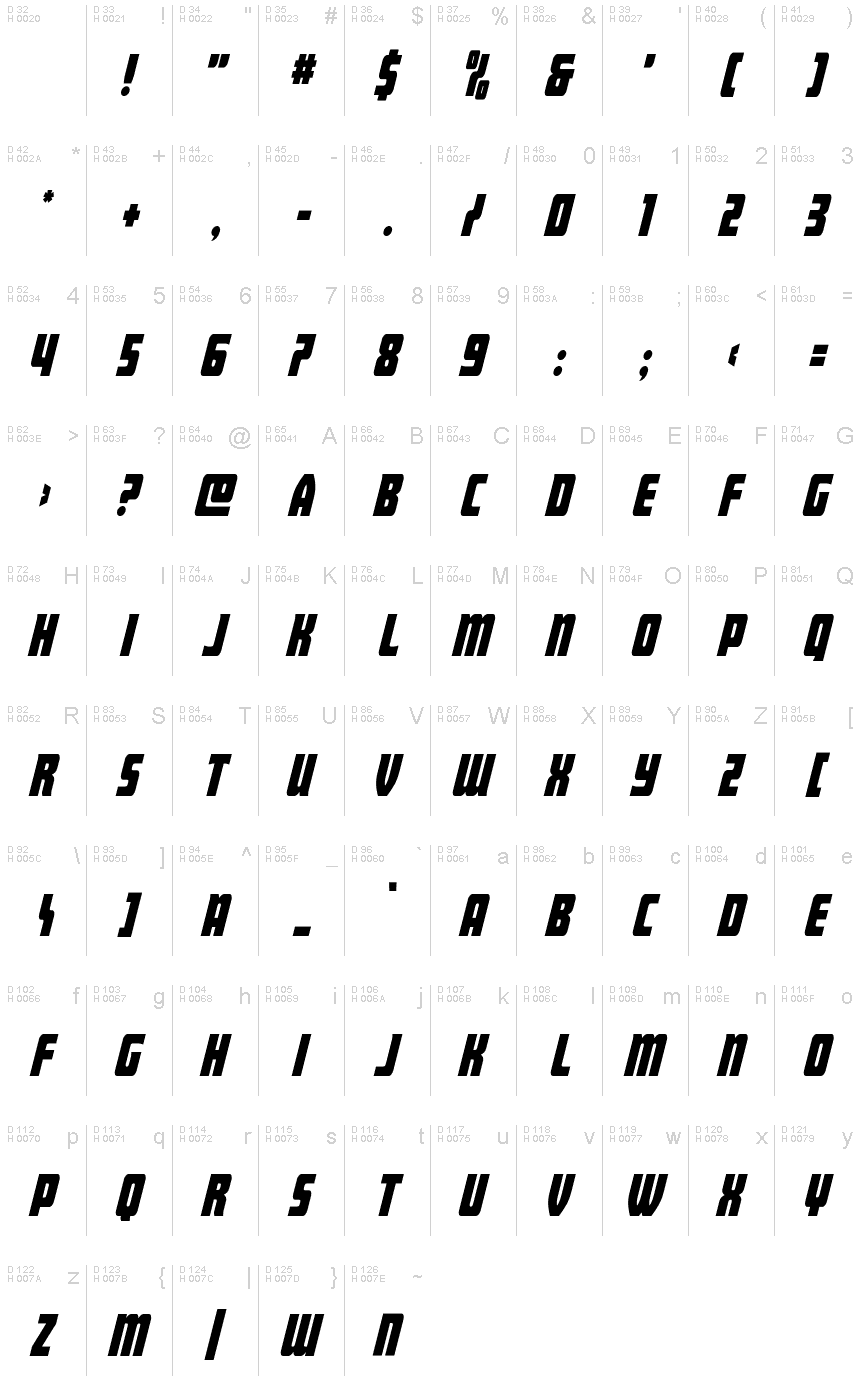
Intrepid Spear Condensed Ital
Intrepid Spear Condensed Italic stands out as a bold statement in the realm of display fonts. Crafted by Iconian Fonts, its techno style exudes a futuristic vibe that is both sharp and daring. The font's extra-condensed width and slanted form give it a sense of motion and urgency, perfect for capturing attention in high-impact visuals.
The aesthetic appeal of Intrepid Spear lies in its unique blend of boldness and precision. The characters are designed with an assertive weight that commands presence, while the italic angle adds dynamism to any text. This makes the font particularly well-suited for creative projects that call for a modern, cutting-edge feel—think movie posters, game interfaces, or tech brand identities.
With two sub-families—Regular and Lower Case—Intrepid Spear offers versatility to designers looking to mix and match for the perfect typographic composition. Whether used in large headers or as an accent font, Intrepid Spear Condensed Italic is set to elevate designs with its striking presence and distinctive techno flair.
The aesthetic appeal of Intrepid Spear lies in its unique blend of boldness and precision. The characters are designed with an assertive weight that commands presence, while the italic angle adds dynamism to any text. This makes the font particularly well-suited for creative projects that call for a modern, cutting-edge feel—think movie posters, game interfaces, or tech brand identities.
With two sub-families—Regular and Lower Case—Intrepid Spear offers versatility to designers looking to mix and match for the perfect typographic composition. Whether used in large headers or as an accent font, Intrepid Spear Condensed Italic is set to elevate designs with its striking presence and distinctive techno flair.